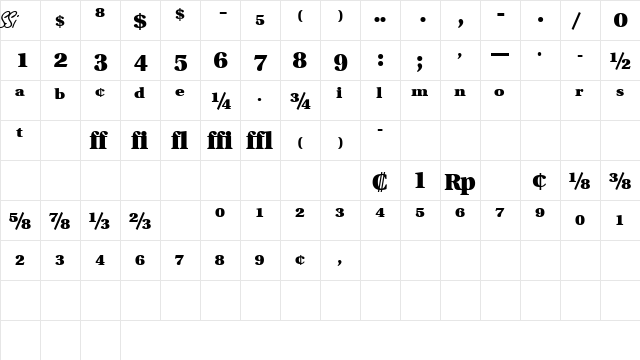
VeracityProBlackSSK Bold Font Preview
VeracityProBlackSSK Bold
Design Context for VeracityProBlackSSK Typeface
VeracityProBlackSSK is a composed and adaptable typeface that performs quietly and consistently across a wide range of design contexts. Its bold stroke weight gives it real presence on the page.